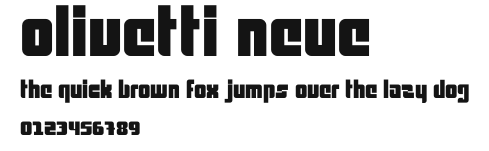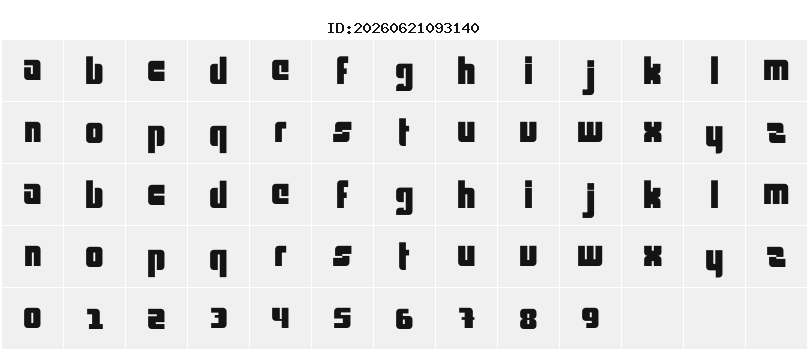
• Font Name: Olivetti Neue
• Designer: Pedro Miguel Xarepe
• Manufacturer: Alentexas Type Foundry
About Olivetti Neue.otf
Olivetti Neue.otf is a modern, elegant sans-serif font designed for ultimate readability and visual harmony. Perfect for branding, headlines, web design, and print materials.